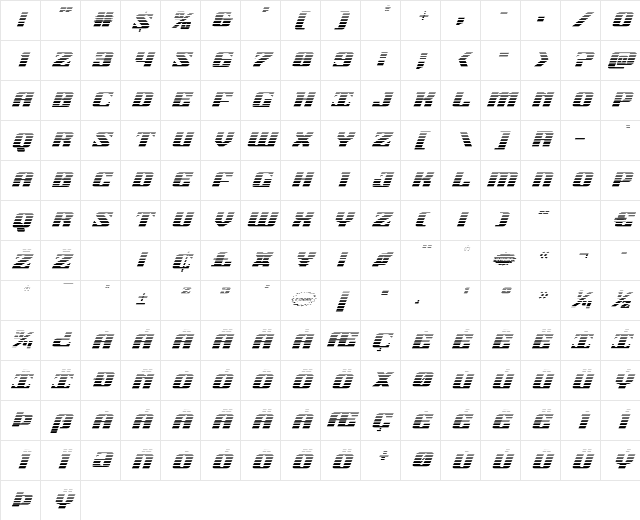
21 Gun Salute Gradient Italic Italic
Complete 21 Gun Salute Gradient Italic Italic glyph index. Displaying only characters natively supported by 21 Gun Salute Gradient Italic Italic font.
Design Context for 21 Gun Salute Gradient Italic
21 Gun Salute Gradient Italic is a composed and adaptable typeface that performs quietly and consistently across a wide range of design contexts. The slanted form adds forward momentum and visual energy.